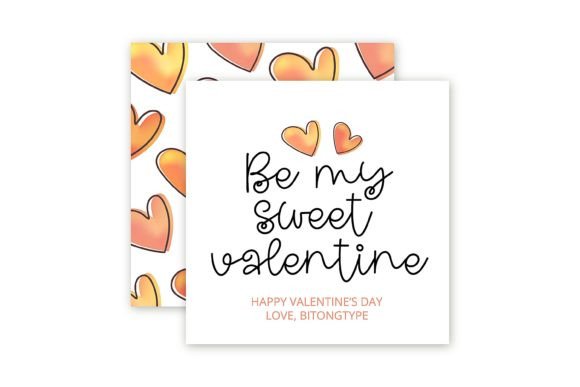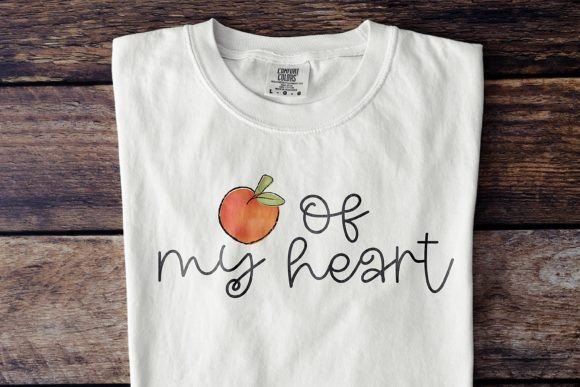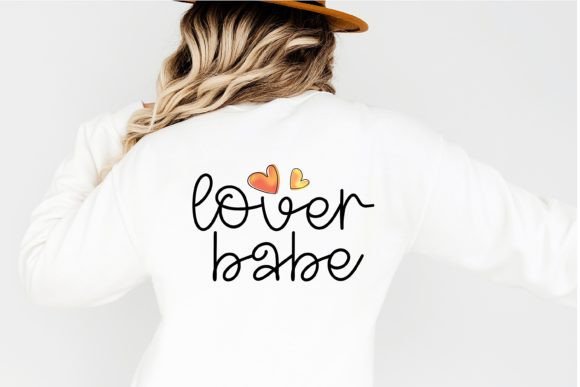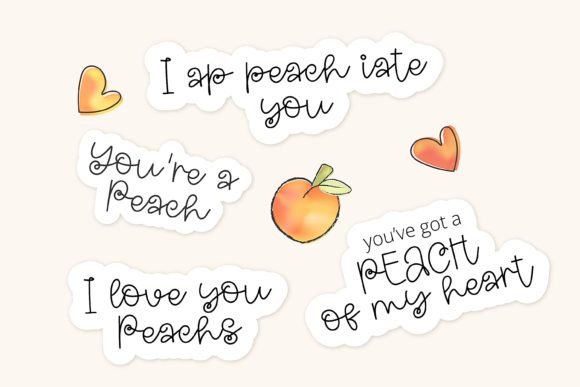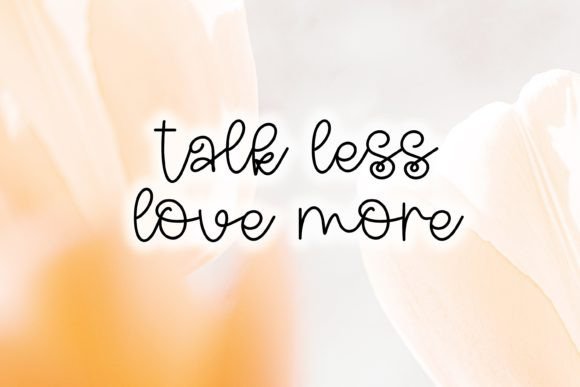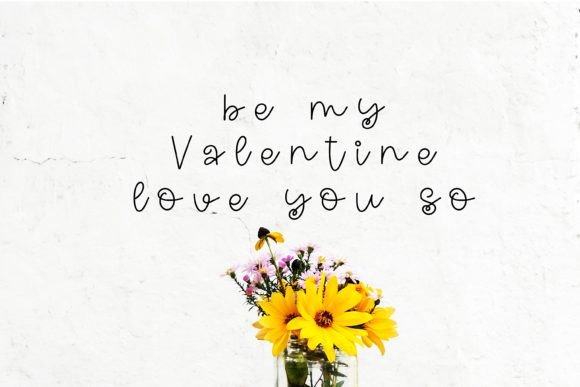
Introduction to Peach Valentine Font
Peach Valentine is a cool, friendly, and informal handwritten font that can be used for all chalkboard quotes or teaching material.
Its authentic look and feel will add a personal and realistic touch to your designs .